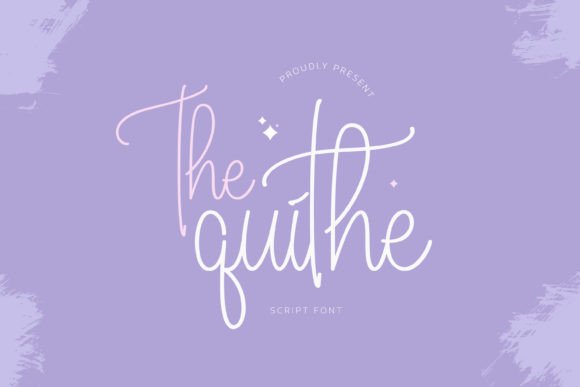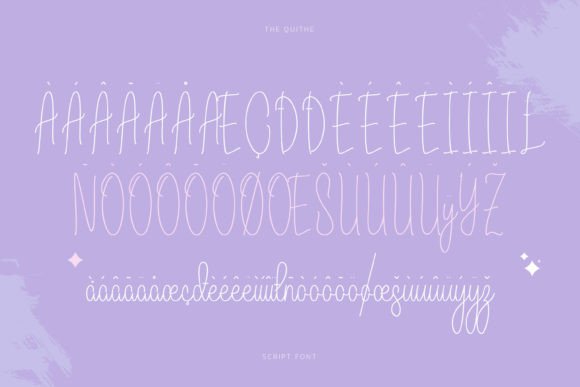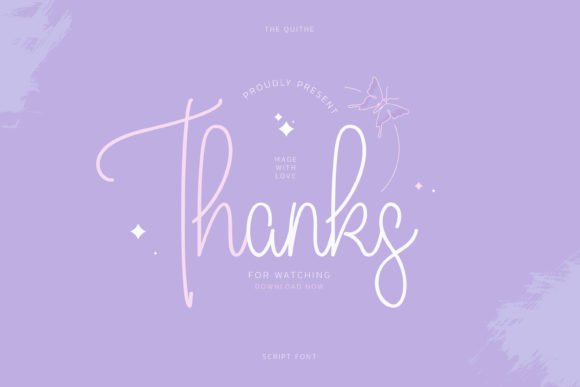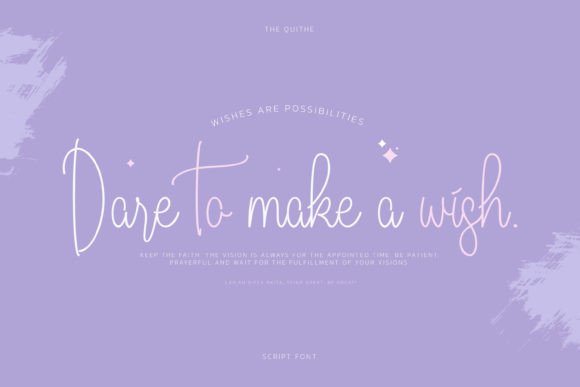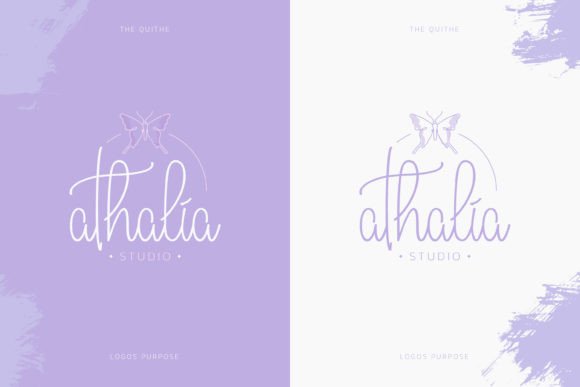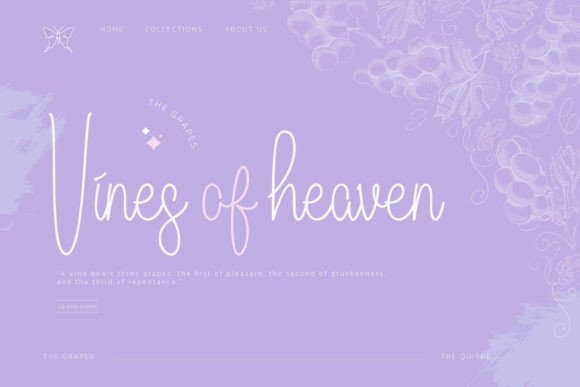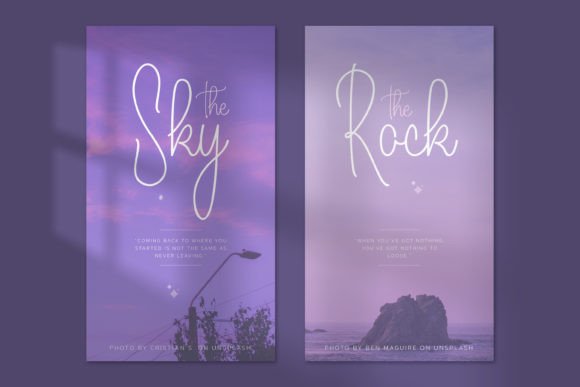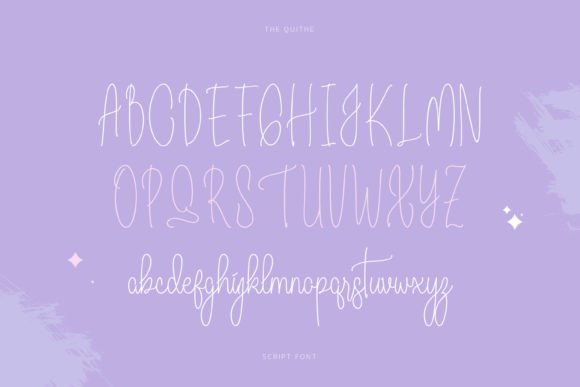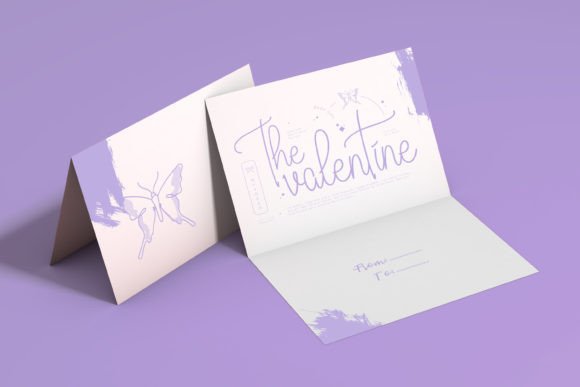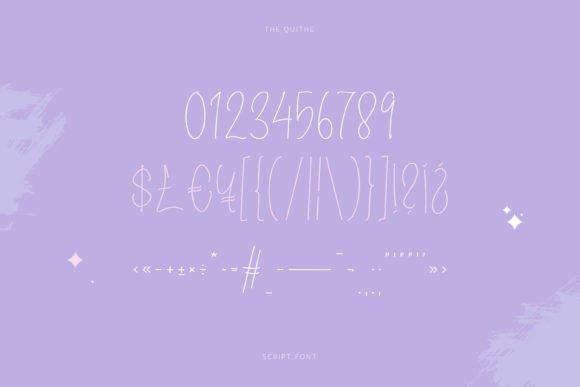
The Quithe Font
About The Quithe Font
The Quithe is a delicate and elegant handwritten font. Its distinct and well-balanced letters make this font a masterpiece. Fall in love with its incredibly versatile style and use it to create spectacular designs!